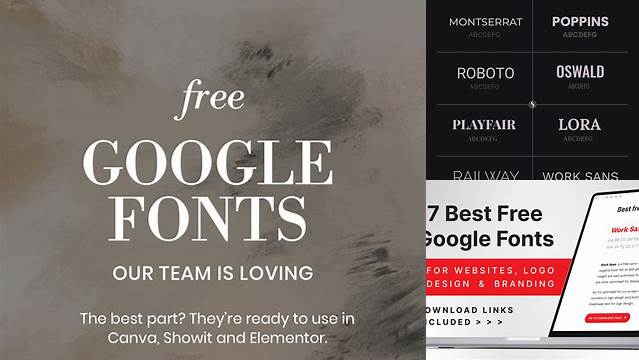
Google Fonts: Free Downloads For Stunning Web Design
Google Fonts offers a treasure trove of typography for web designers and developers. With a vast library of free, open-source fonts, it's easy to find the perfect typeface to enhance your website's aesthetics and readability. Let's dive into the world of Google Fonts and explore how you can leverage them to create stunning web designs.
1. Exploring the Google Fonts Library
The Google Fonts library is a vast collection of typefaces, offering a diverse range of styles to suit various design needs. From elegant serifs to modern sans-serifs, and playful display fonts to monospaced options for code, the library caters to almost every project imaginable. The beauty of Google Fonts lies not only in its variety but also in its accessibility – all fonts are free to use, making professional-quality typography available to everyone. Guys, imagine having access to thousands of fonts without spending a dime! It's a game-changer for designers and developers alike. Each font family comes with different weights and styles, such as regular, italic, bold, and more, allowing for even greater flexibility in your designs. Whether you’re working on a blog, an e-commerce site, or a portfolio, you can find the right font to match your brand and convey the desired message. Exploring the library is like going on a treasure hunt; you never know what gem you might discover. Seriously, take some time to browse and experiment with different fonts – it's an investment that will pay off in the long run. Plus, Google regularly updates its library, so there's always something new to discover. Happy font hunting!
4. Best Practices for Using Google Fonts
Using Google Fonts effectively involves more than just downloading and integrating them into your website. To ensure optimal performance and user experience, it's essential to follow some best practices. First, limit the number of fonts you use on your website. Using too many fonts can slow down your website's loading time and create a cluttered, unprofessional look. Stick to a maximum of two or three fonts, and use them consistently throughout your site. Second, choose fonts that are legible and readable. While fancy display fonts may look appealing, they can be difficult to read, especially for large blocks of text. Opt for fonts that are designed for readability, such as Open Sans, Roboto, or Lato. Third, consider the font weights and styles. Using too many weights and styles can also slow down your website and make it look inconsistent. Select only the weights and styles that you need, and use them sparingly. Fourth, optimize your font loading. Use techniques like font preloading to ensure that your fonts load quickly and don't block the rendering of your website. Fifth, test your fonts across different browsers and devices. Google Fonts may render differently on different platforms, so it's important to ensure that they look consistent across all devices. Guys, following these best practices will help you use Google Fonts effectively and create a website that is both visually appealing and performant.
5. Google Fonts Alternatives
While Google Fonts offers a vast library of free fonts, there are several alternatives worth considering. These alternatives can provide unique font options and features that may better suit your specific design needs. Adobe Fonts, for example, is a subscription-based service that offers a wide range of high-quality fonts, including exclusive typefaces from renowned foundries. Font Squirrel is another popular option, offering a curated collection of free, commercial-use fonts. MyFonts is a marketplace where you can purchase fonts from independent designers and foundries. Typography.com is a premium font provider that offers a selection of expertly crafted typefaces. Each of these alternatives has its own strengths and weaknesses. Adobe Fonts offers a seamless integration with Adobe Creative Cloud, making it a convenient choice for designers who use Adobe products. Font Squirrel is a great option for finding free fonts with commercial licenses. MyFonts provides a diverse selection of fonts from independent designers, allowing you to support their work. Typography.com offers a curated collection of high-quality typefaces, ensuring that you're using the best possible fonts for your projects. Guys, exploring these Google Fonts alternatives can help you find the perfect typography for your website, ensuring that it stands out from the crowd. Whether you choose to stick with Google Fonts or explore other options, the key is to select fonts that are legible, visually appealing, and consistent with your brand.